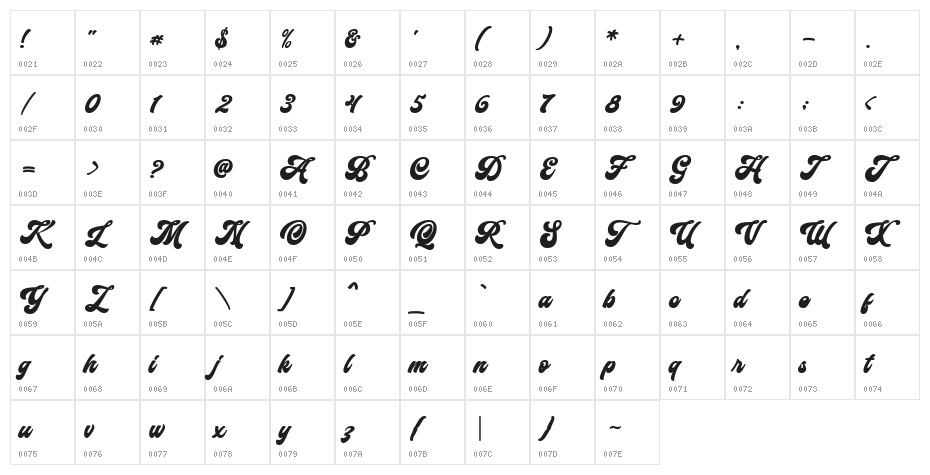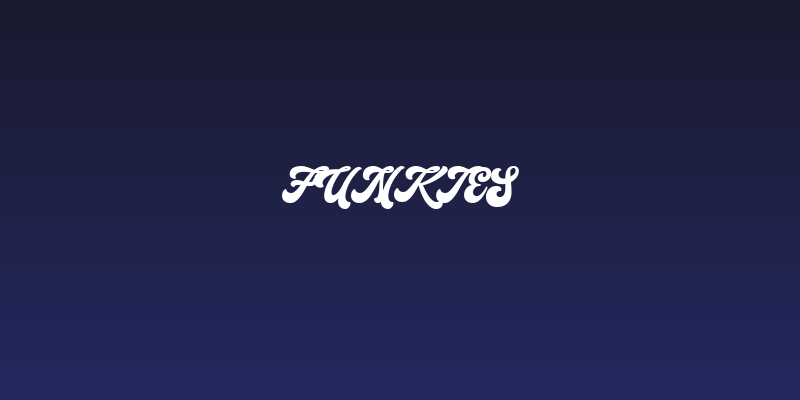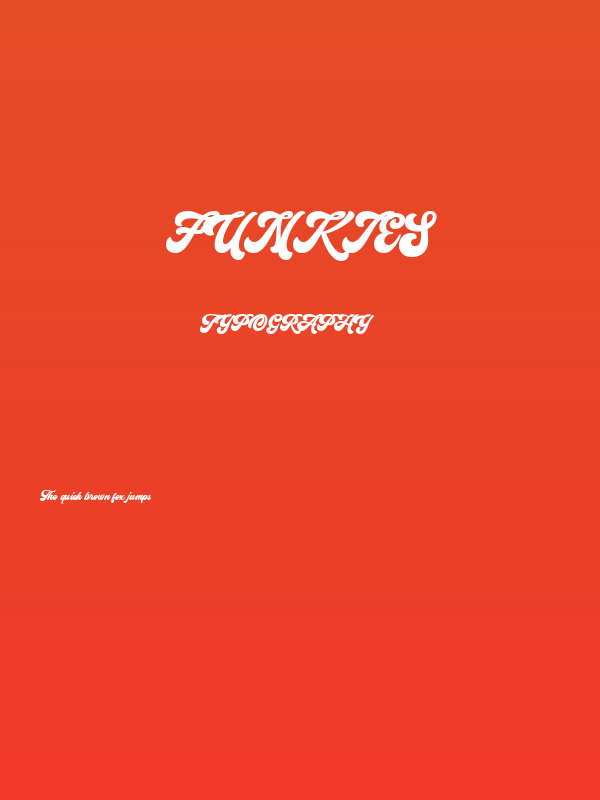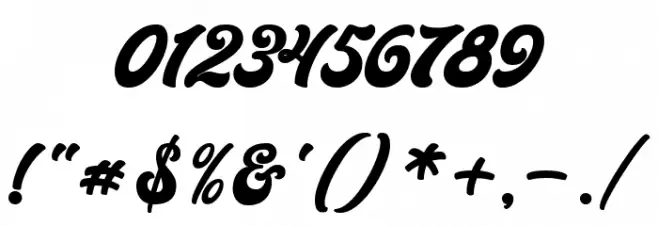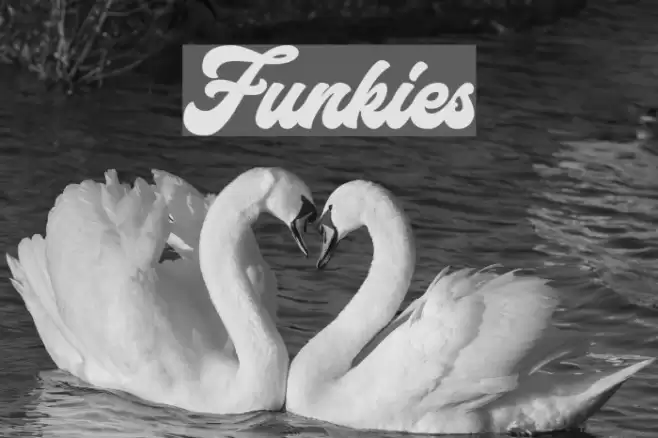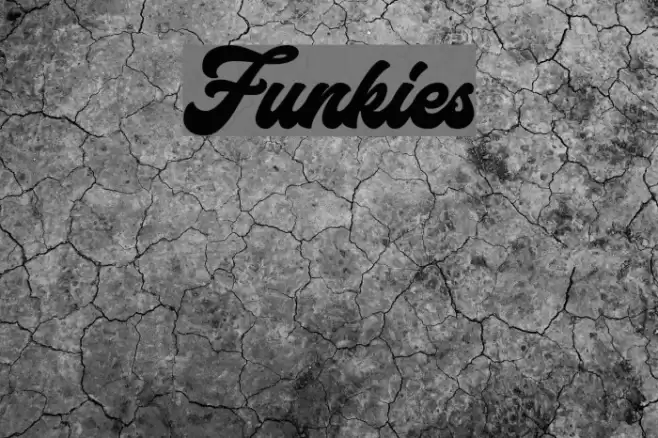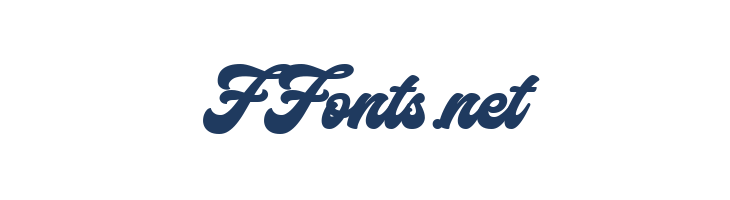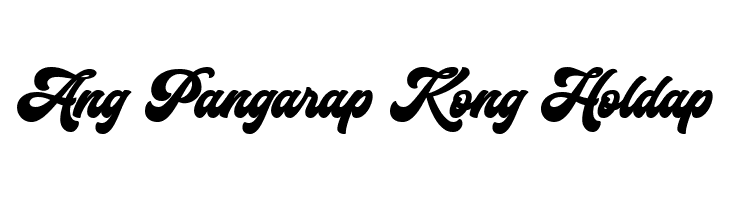
Funkies Font
Funkies Description
This font features a bold and dynamic script style, characterized by its flowing, cursive letterforms. The strokes are thick and consistent, providing a strong visual impact. Each character is intricately designed with smooth curves and elegant loops, giving it a sense of movement and fluidity. The uppercase letters are particularly ornate, with exaggerated swashes that enhance their decorative appeal. The lowercase letters maintain a cohesive look, complementing the uppercase with their rounded and connected forms. Numbers and special characters are equally stylized, ensuring a uniform appearance across all text. The overall design is playful yet sophisticated, making it suitable for a variety of creative applications.